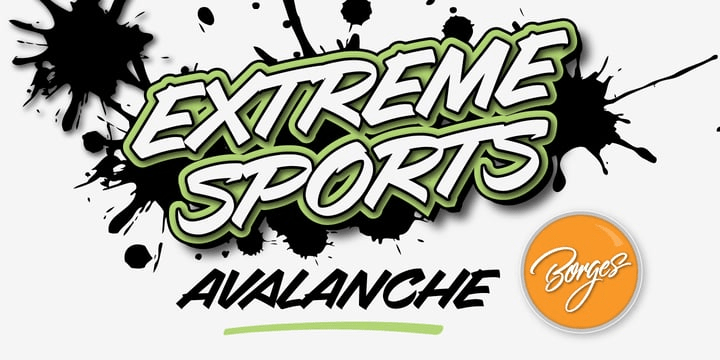
HomeFont BrosHandwrittenAvalanche HandwrittenScripts: CasualRetro (1936-1965) Avalanche FacebookXPinterestWhatsApp 1 of 1 About Avalanche is a fun casual typeface great for when a bold caption is needed.  DOWNLOAD NOW People also explored Brizlish Font Simple Flower Font Lemonade Font Red Bright Font Turkoman Font Rosella Font Sugar Snow Font Play Skull N Bones Font Ballet Font 257 0 TagsAvalanche Font Previous articleMoney ShotNext articleOildale Regular LEAVE A REPLY Cancel reply Comment: Please enter your comment! Name:* Please enter your name here Email:* You have entered an incorrect email address! Please enter your email address here Website: Save my name, email, and website in this browser for the next time I comment. Personal Use Free Krase Personal Use Free Read more about this font Arnprior Personal Use Free Read more about this font Baby Magnolia Personal Use Free Read more about this font Juliagar Personal Use Free Read more about this font BLOG Top 7 Google Fonts Alternatives for Faster and Privacy-Friendly Web Design (2025) Top 7 Google Fonts Alternatives for Faster and Privacy-Friendly Web Design (2025) When it comes to web typography, Google Fonts has long been the go-to... Free vs Paid Fonts: Why Investing in Premium Fonts Is Worth It 5 Fonts That Will Dominate Design Trends in 2026 Elegant Wedding Invitation Fonts – Handwritten & Script Fonts